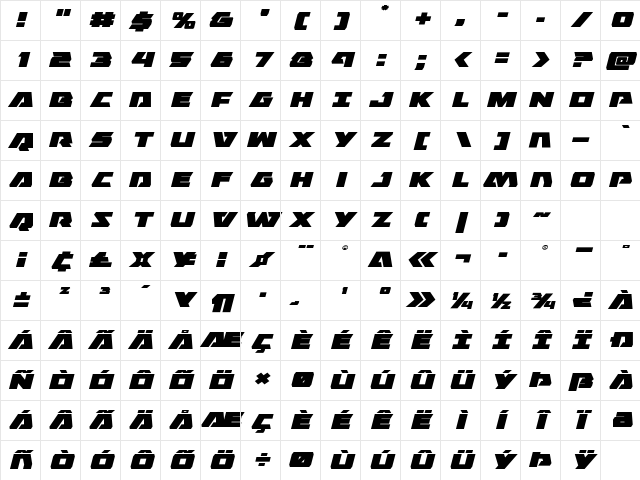
Complete Eagle Strike Expanded Italic glyph index. Displaying only characters natively supported by Eagle Strike Expanded Italic font.
Eagle Strike Expanded Italic is a composed and adaptable typeface that performs quietly and consistently across a wide range of design contexts. The slanted form adds forward momentum and visual energy.